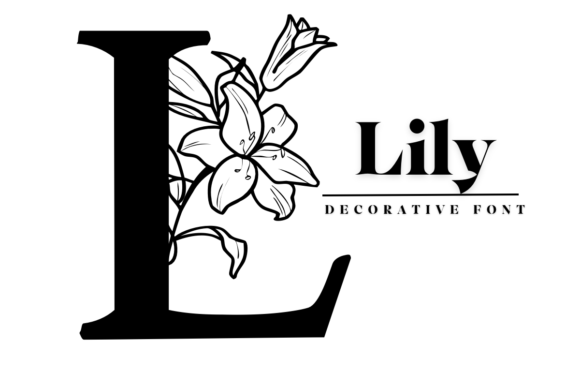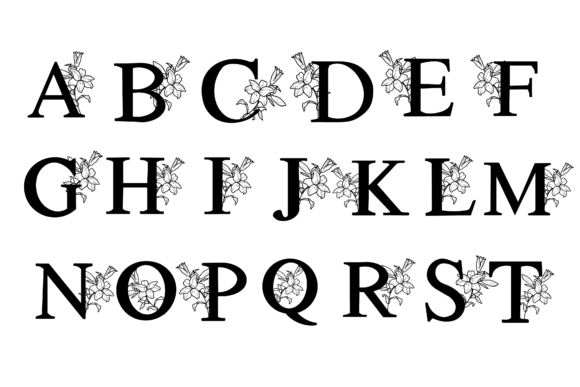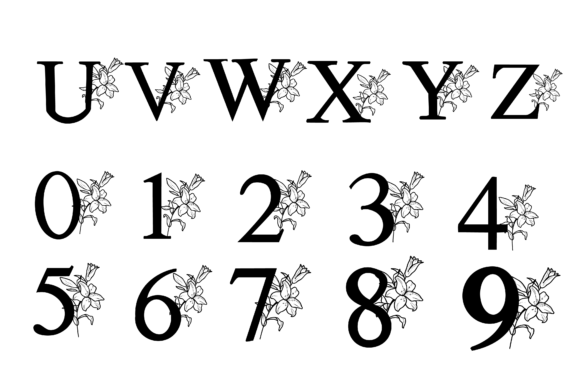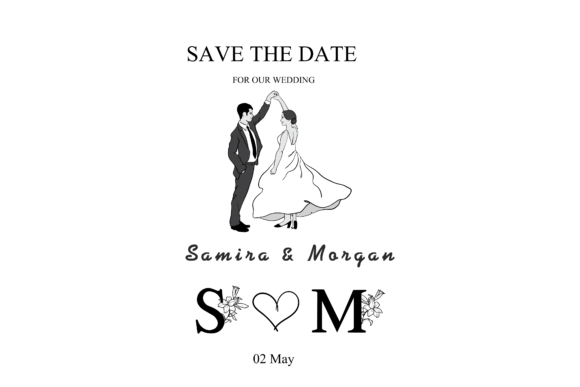
About the Lily Font
Crafted with precision, the Lily Font is ready to bring your ideas to life. Lily is a decorative font with floral elements. You can use it for taking notes, writing a diary, or making greeting cards. However, you can still use it for other designs, such as banners, content, mugs, cards, shirts, stationery, social media posts, and more!
Lily’s decorative nature makes it ideal for headlines, short text blocks on invitations or packaging, and social media graphics where its floral details add visual charm. It excels in projects needing a touch of whimsy or romantic flair, such as branding for boutiques or floral businesses. However, its intricate design is less suitable for body text or UI elements, where readability is paramount. Extended use could quickly become visually overwhelming.
Pairing Lily with a clean sans-serif like Montserrat for body copy provides a strong contrast, balancing its ornate style with modern simplicity. For a more traditional feel, a classic serif like Garamond offers a sophisticated counterpoint. Avoid pairing it with other highly decorative fonts, as this can result in a cluttered and visually jarring effect.
Lily’s overall personality is best described as playful yet elegant. It’s perfect for brands that wish to project a feminine, sophisticated, and slightly whimsical image.